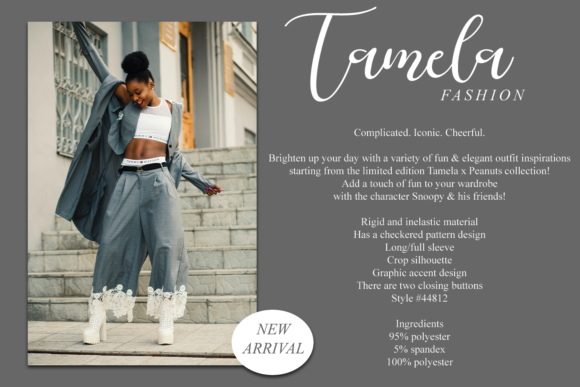
Country Western Font
Country Western is a sophisticated handwritten font that’s great for delivering any message with confidence, authenticity and charm. It will elevate a wide range of crafting ideas, from cards, to branding, labels and much more.